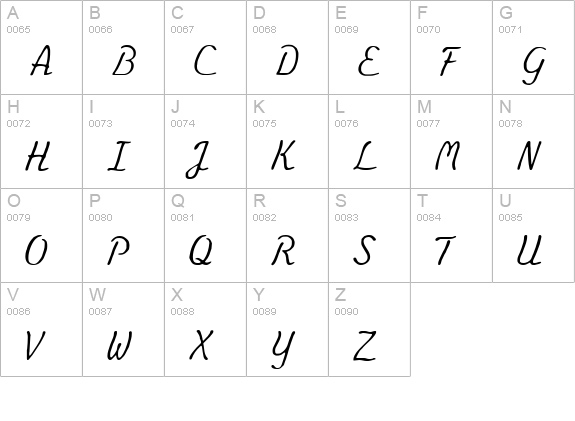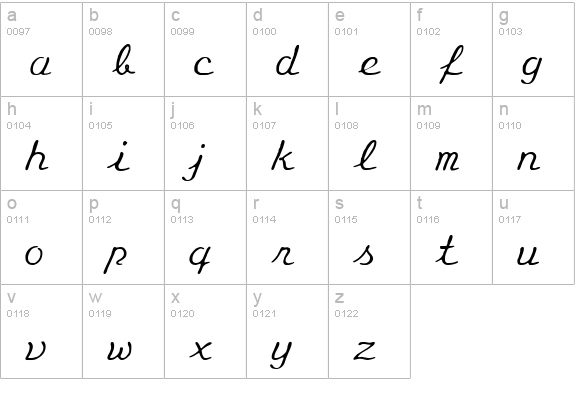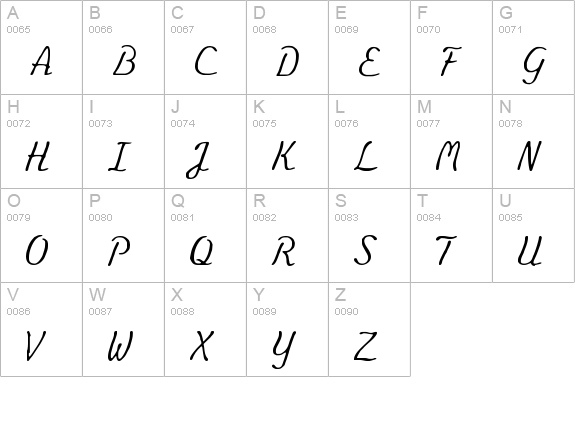
Eminenz Font Details
Eminenz font is a stunning display typeface that exudes elegance and sophistication. With its sleek lines and modern look, this font is the perfect choice for projects that require a touch of refinement and style. The sharp angles and distinctive letterforms of Eminenz make it stand out from the crowd, adding a unique flair to any design. What's more, Eminenz font is available for free download at FontsMarket.com. This means that you can easily access this beautiful typeface without any cost, making it a valuable addition to your font collection. Whether you're working on a branding project, a logo design, or any other creative endeavor, Eminenz font is sure to elevate your work to new heights. Download it today and see the difference it can make in your designs!